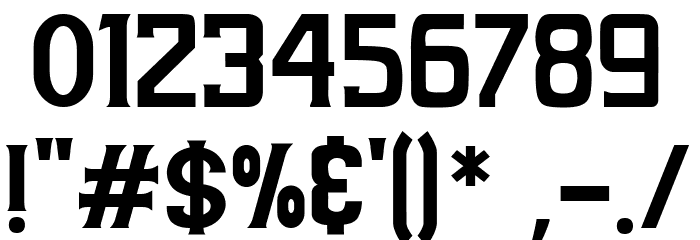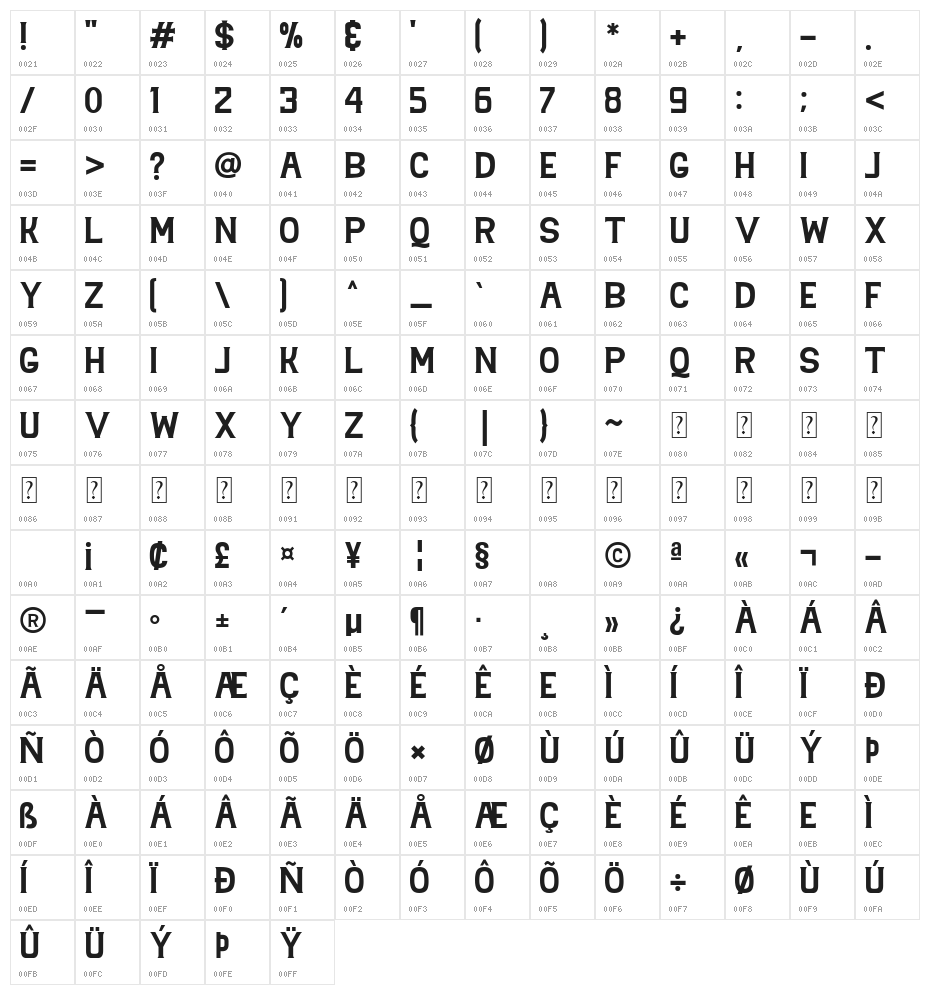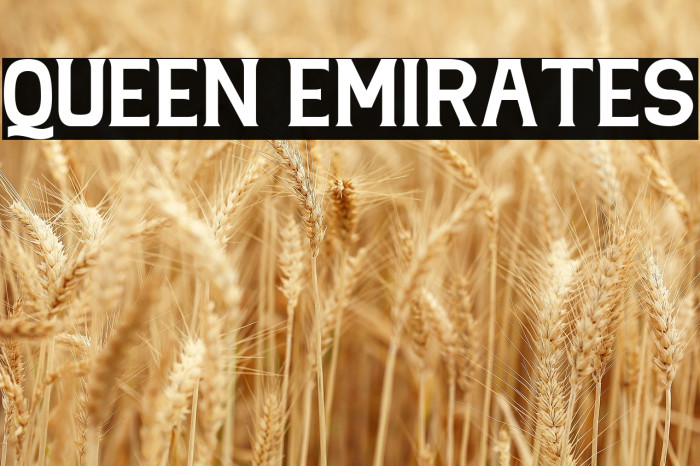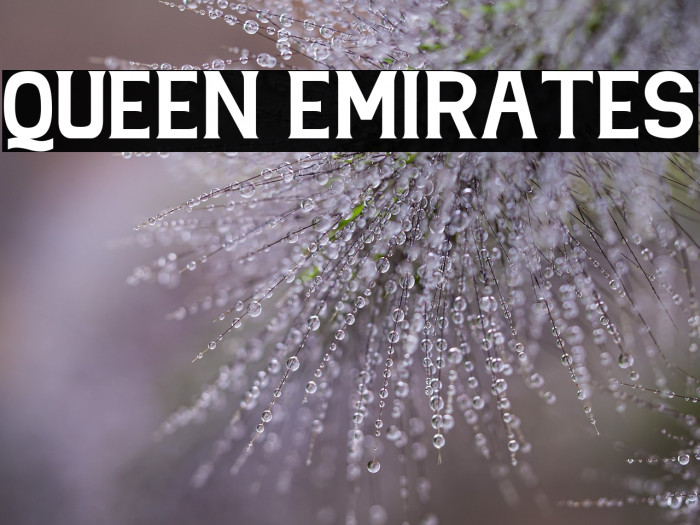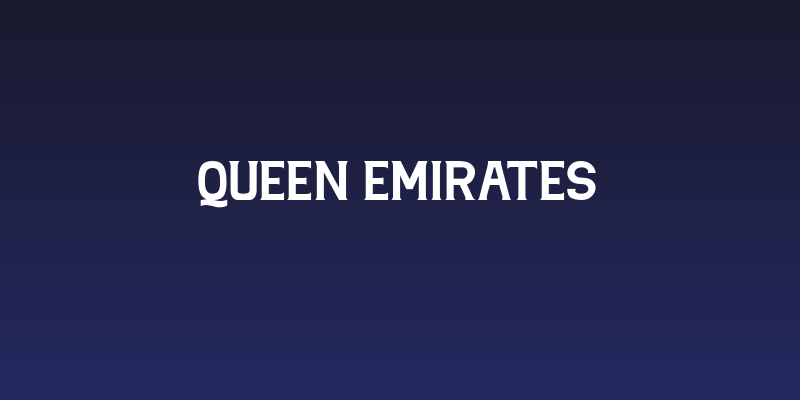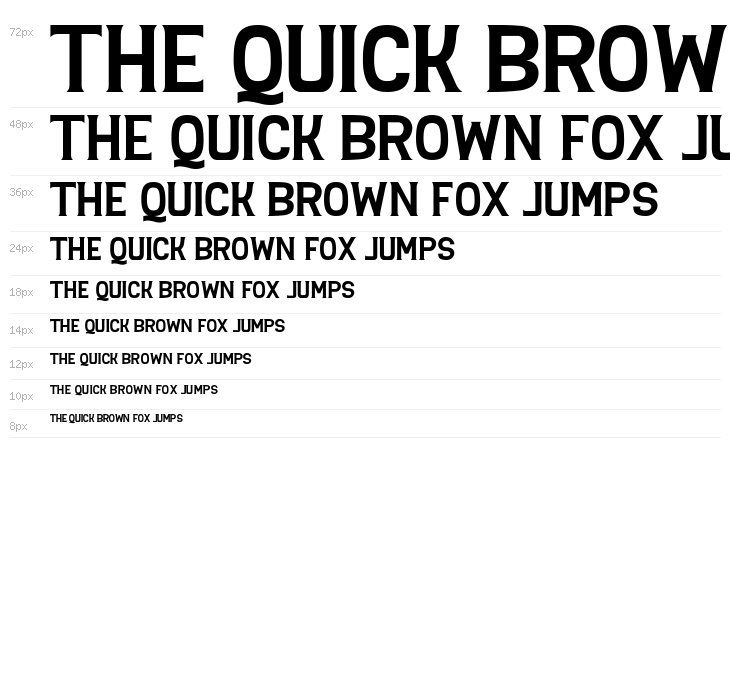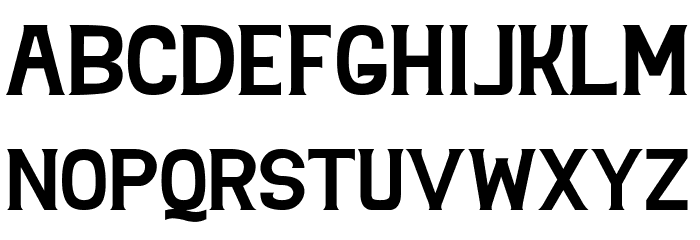
Queen Emirates Font
Queen Emirates Description
This font features a bold and assertive style with strong, angular lines and a modern aesthetic. The uppercase letters are uniform in height, providing a sense of stability and strength. The numerals are equally bold, ensuring clear readability. Special characters are designed with the same robust style, making them stand out effectively. The overall design is clean and impactful, suitable for making a strong visual statement.
| Proposed Projects | Ideal for branding, headlines, posters, and any project requiring a strong visual impact. |